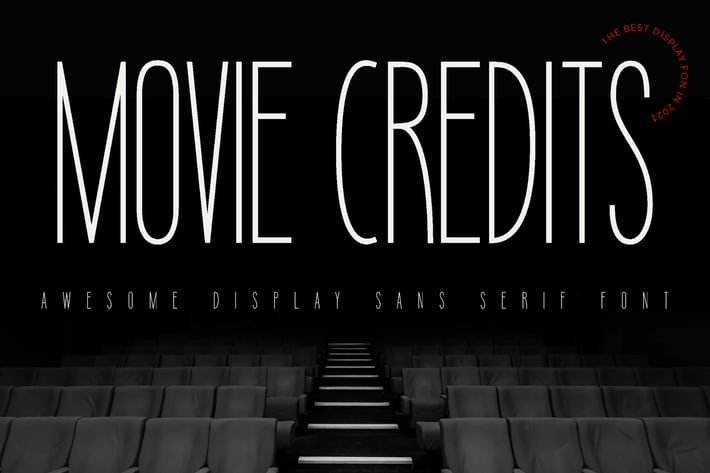
Movie Credits Entertainment Font
Movie creadit is simple entertainment font. It can easily be matched to an incredibly large set of projects like logo, package, advertisement, magazine, , so add it to your creative ideas and notice how it makes them stand out!